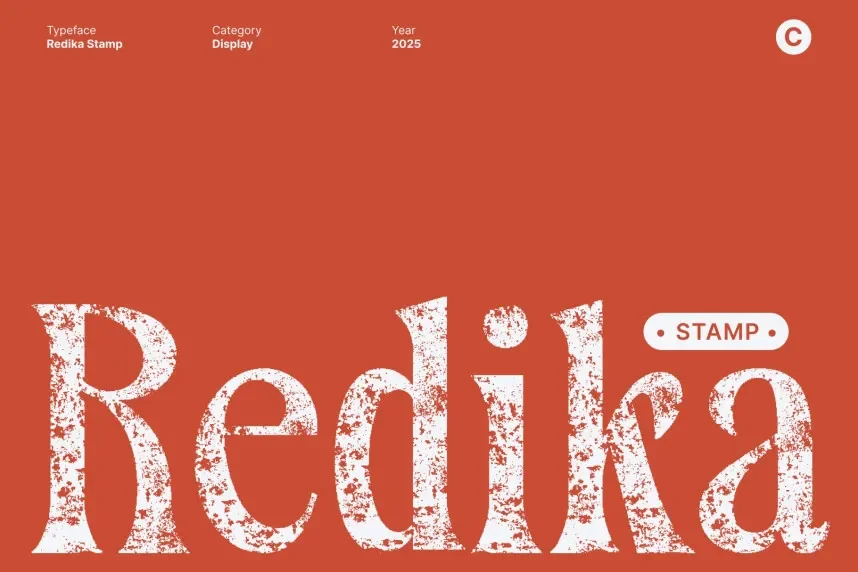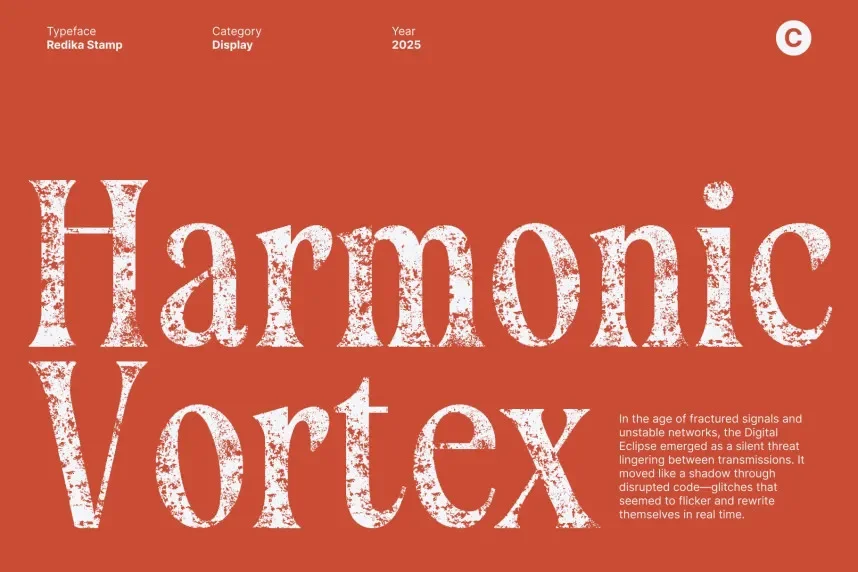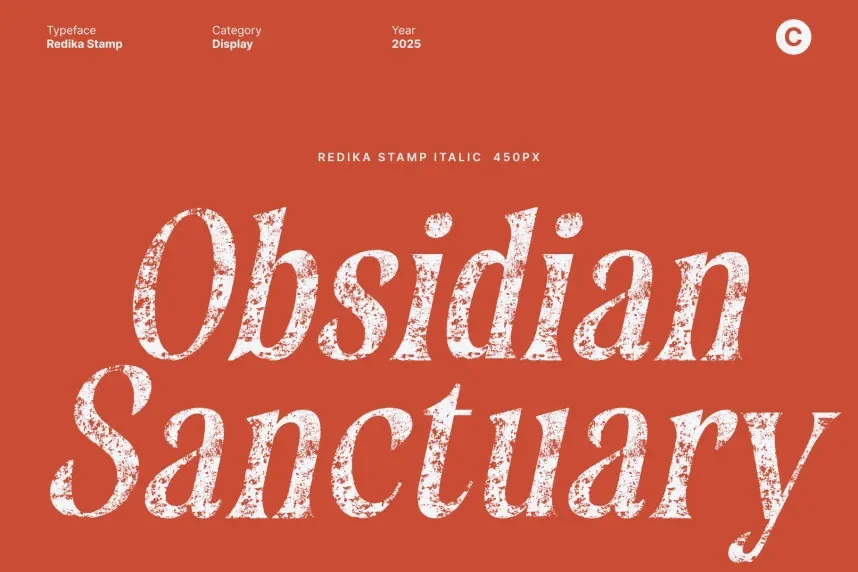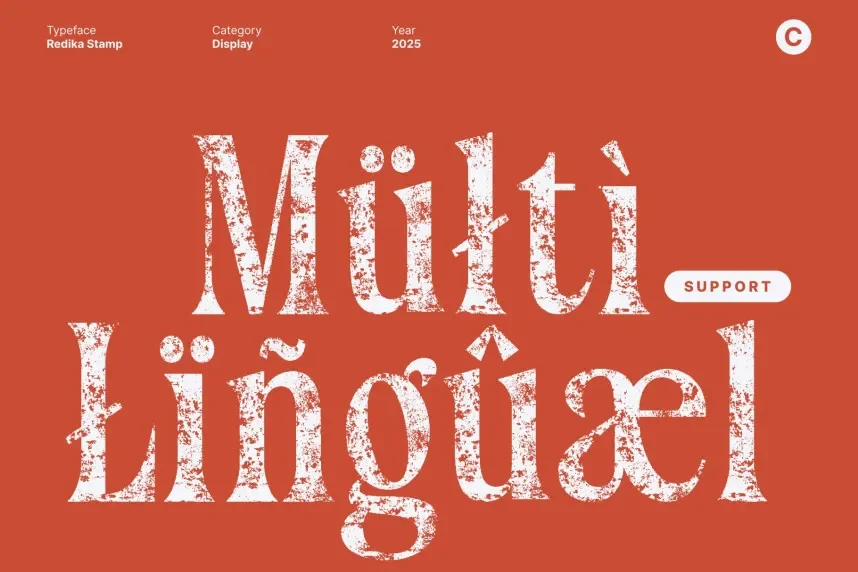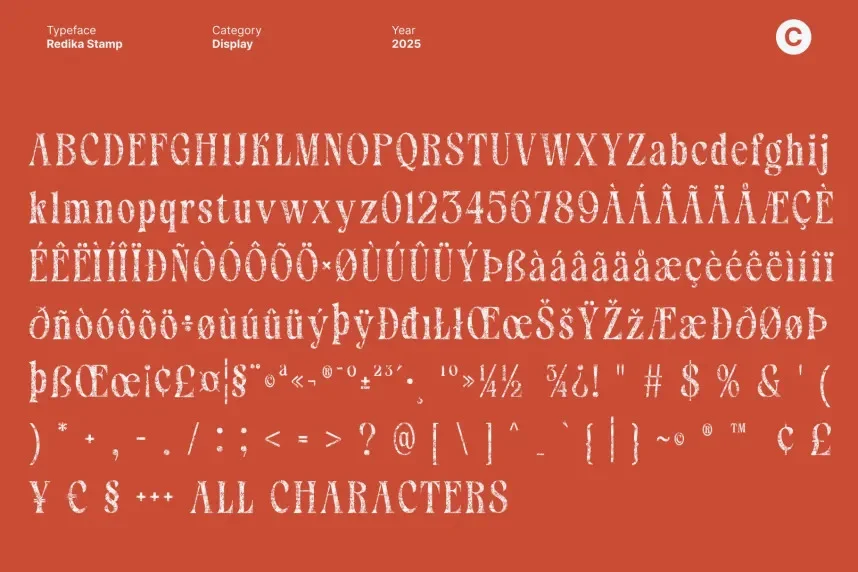
Redika Stamp Font is a bold, grunge-style display font with a stamped texture. Its rough edges and uneven letterforms make it perfect for designs that need a raw, rugged feel, such as vintage posters, branding, and promotional material.